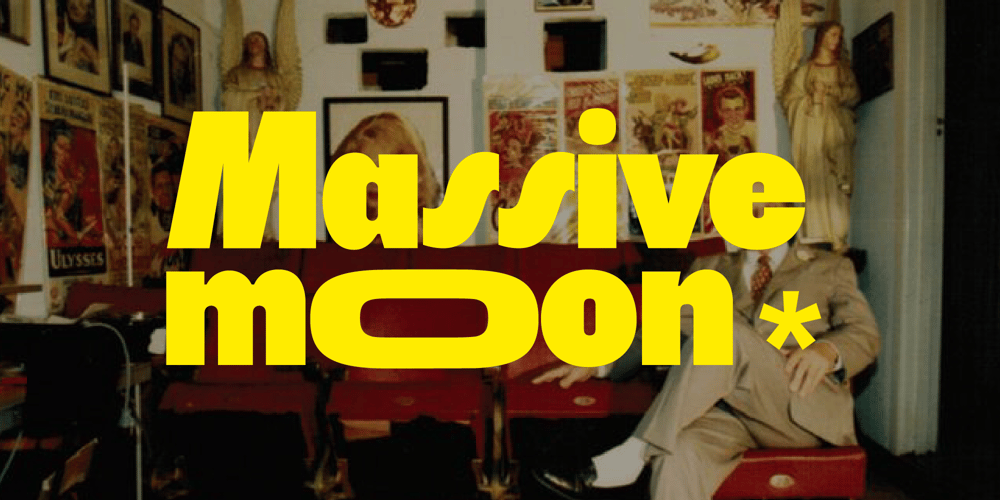
Fd Massive Font Family was designed by Ramandhani Nugraha and published by Fortunes Co. Fd Massive contains 1 styles and family package options. Massive moon is headline font with a retro feel transports readers to a bygone era, invoking nostalgia and charm. Its bold strokes and quirky serifs harken back to the golden age of design, reminiscent of vintage posters and classic advertisements. The typeface exudes a timeless appeal, seamlessly merging the flair of yesteryear with modern readability. Each character carries a sense of character, mirroring the craftsmanship of mid-century typography. The warm color palette and slightly distressed texture further amplify the retro vibe, adding a touch of authenticity. This font doesn’t just convey information; it tells a story, bridging the gap between the past and present.